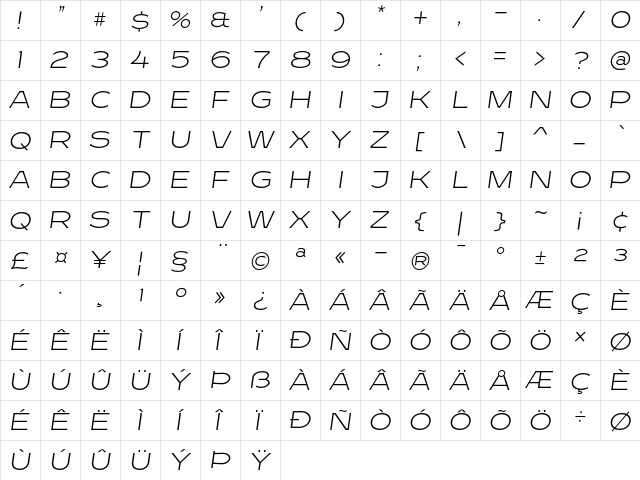
Resotho Extralight Italic
Design Context for Resotho Extralight Typeface
Resotho Extralight offers clean, dependable letterforms without strong stylistic allegiance, making it a practical choice for designers who need flexibility. The slanted form adds forward momentum and visual energy. The delicate stroke weight brings airiness and refinement to layouts.
Pro Tip: Try Resotho Extralight for annotation and caption copy alongside an upright companion — the contrast in angle creates a dynamic but ordered typographic system.